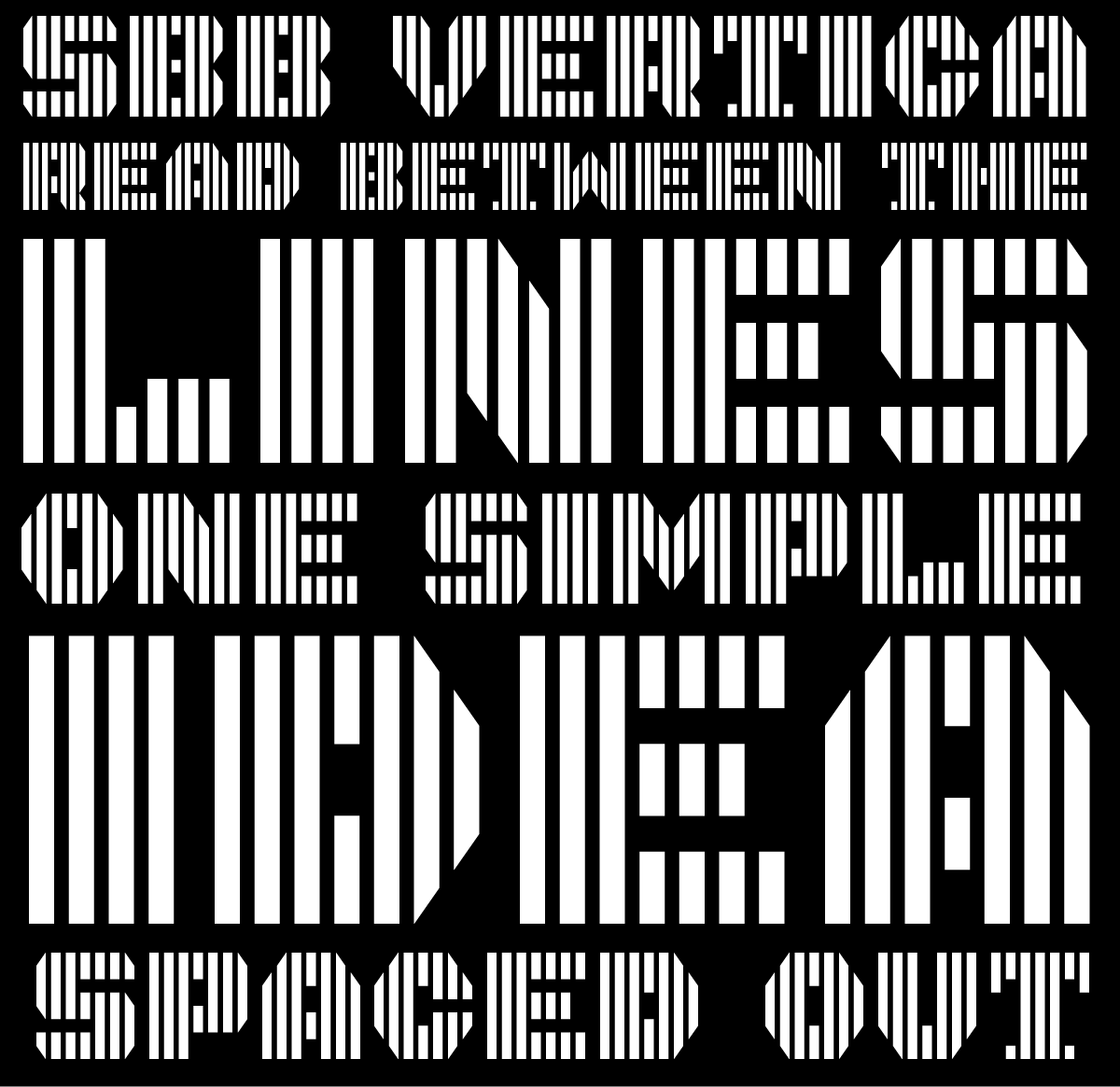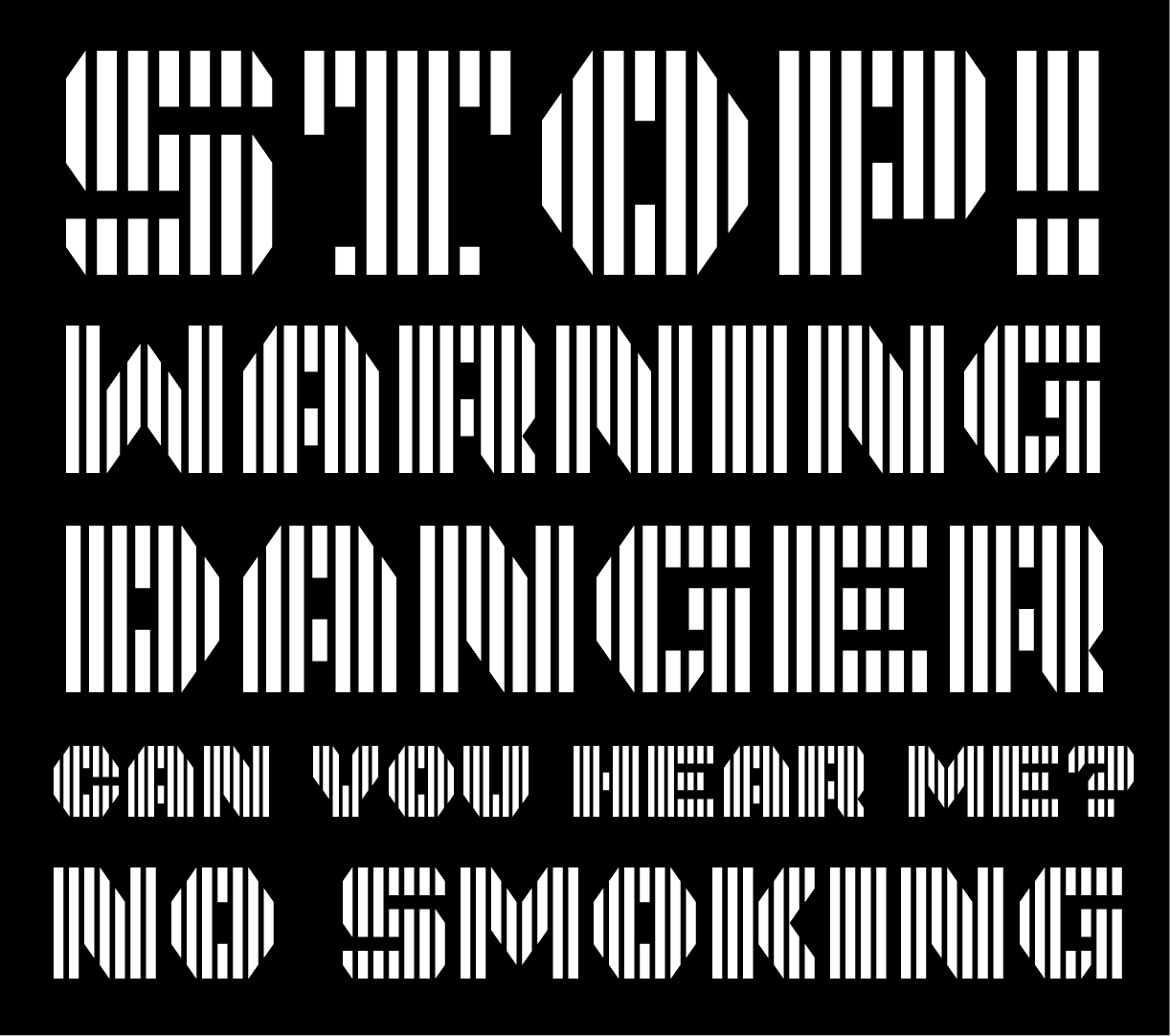
• Bold display font featuring vertical bars. Having some fun with Fontstruct features I don't normally use, like filters and nudging.
Made some refinements and extended the character set.